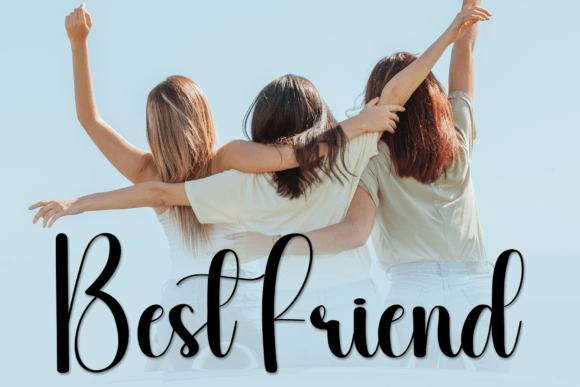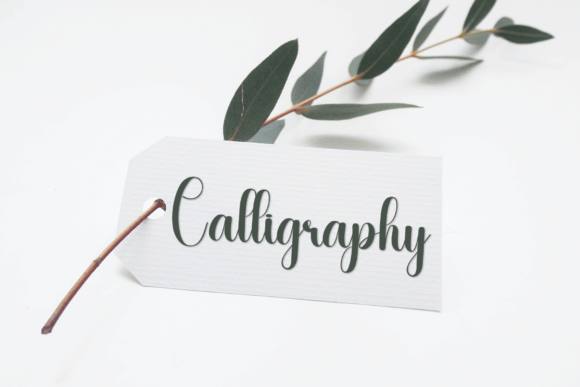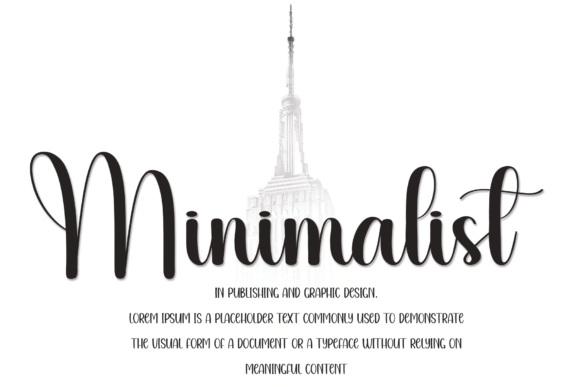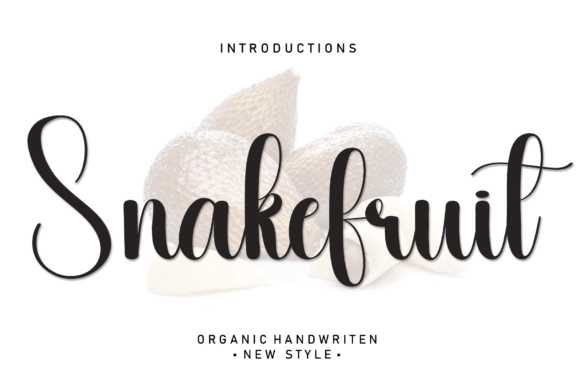
Introduction to Snakefruit Font
Snakefruit is a flowing handwritten font, described by an elegant touch, perfect for your favorite projects.
Key Features of Snakefruit Font
Why Choose Snakefruit Font?
Snakefruit Font offers exceptional quality and versatility, making it a valuable addition to your design toolkit. Whether you’re creating for personal projects or commercial use, Snakefruit Font delivers professional results.